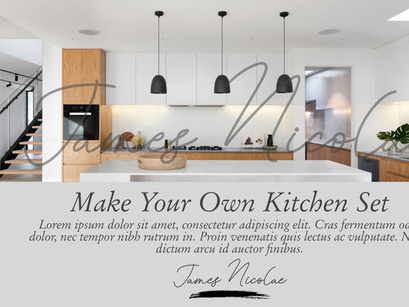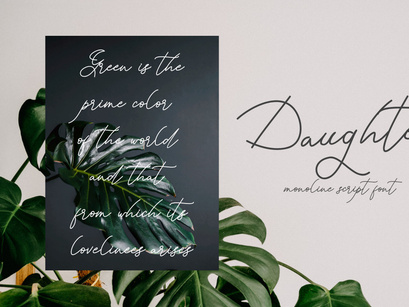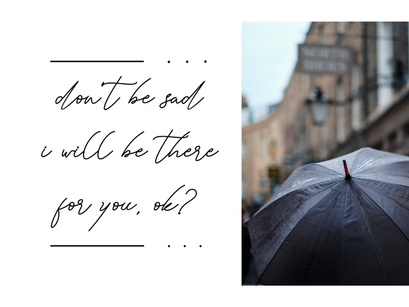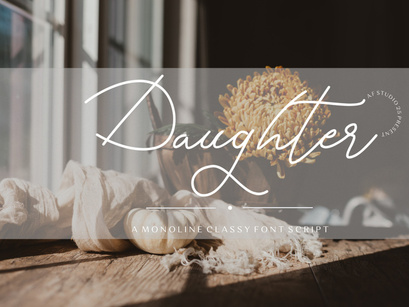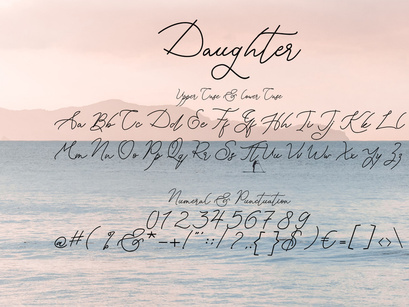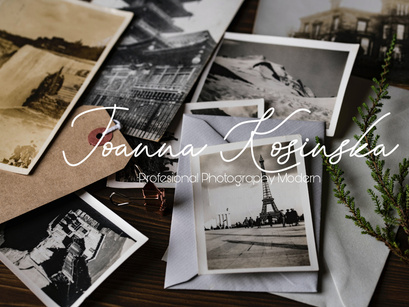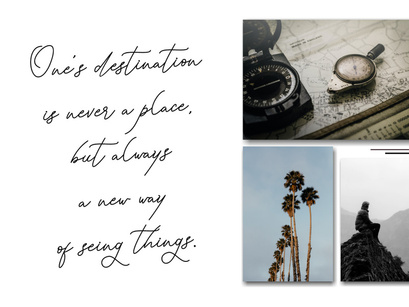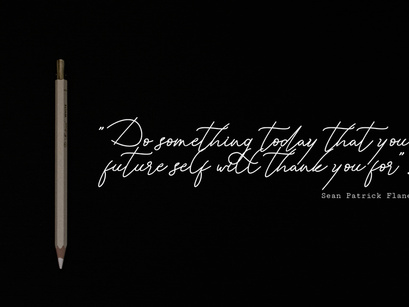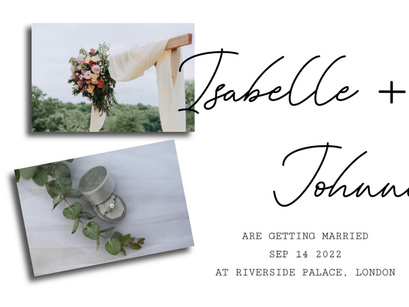
Daughter - A Monoline Classy Font ScriptPremium
Daughter - A Monoline Classy Font Script
Daughter - Classy Signature Font, Calligraphy Font, Handwritten Font, Procreate Font, Canva Font, Cricut Font, Wedding Font, Elegant Font.